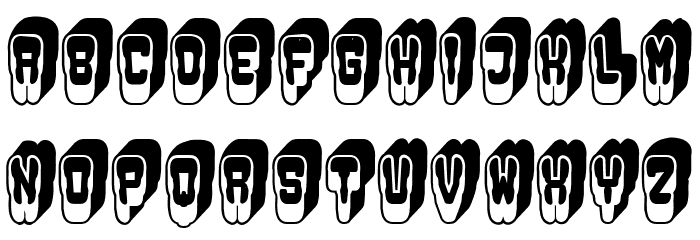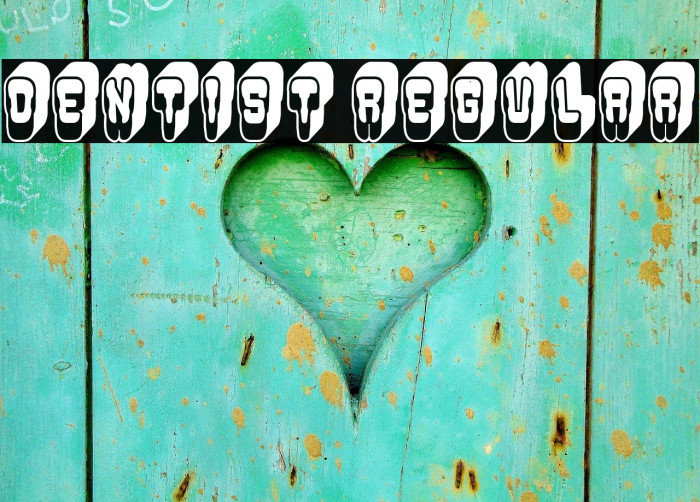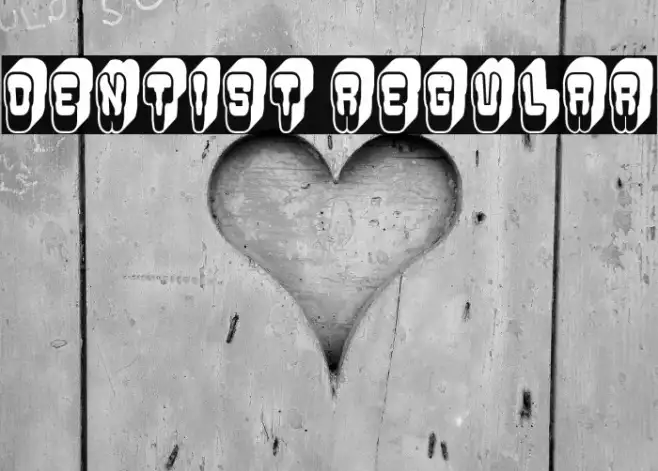
Dentist Regular Font
This font features a playful and bold design, reminiscent of cartoonish or comic styles. Each character is encapsulated in a tooth-like shape, giving it a unique and whimsical appearance. The letters are uppercase and have a three-dimensional effect, with a shadow that adds depth. The style is highly decorative, making it suitable for eye-catching designs. The boldness of the font ensures it stands out, while the quirky design adds a fun and informal touch.
A playful, tooth-themed decorative font with a bold, three-dimensional style.
- Proposed Projects: Ideal for children's book covers, playful branding, dental-themed events, or any project needing a fun and unique typeface.